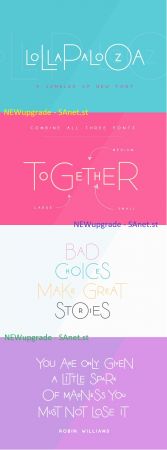
Lollapalooza is here! But it’s not a festival in Chicago, it’s a wonderful new font! In fact, it’s a font trio and you can combine the small, medium and large versions together to create a unique and quirky new style! What's Included Lollapalooza Large Font (OTF & TTF Formats) Lollapalooza Medium Font (OTF & TTF Formats) Lollapalooza Small Font (OTF & TTF Formats) Web Fonts (EOT, SVG, WOFF & WOFF2 Formats) Instant Download Free Updates If you have any queries, questions or issues please don't hesitate to contact us direct.